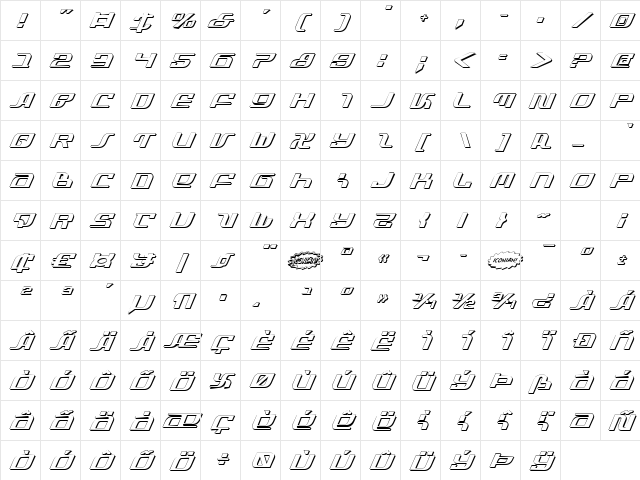
Infinity Formula Shadow Ital Shadow Ital
Style: Shadow Ital
Design Context for Infinity Formula Shadow Ital
Infinity Formula Shadow Ital is built around its visual character rather than neutral utility - its distinctive forms are designed to make an impression at display sizes.
Font Pairing: Pair with a clean neutral sans-serif for body copy to let Infinity Formula Shadow Ital's character lead without overwhelming the composition.
Pro Tip: Use Infinity Formula Shadow Ital exclusively at display sizes - it was designed to be seen, not read at length. Let a neutral companion handle body copy.